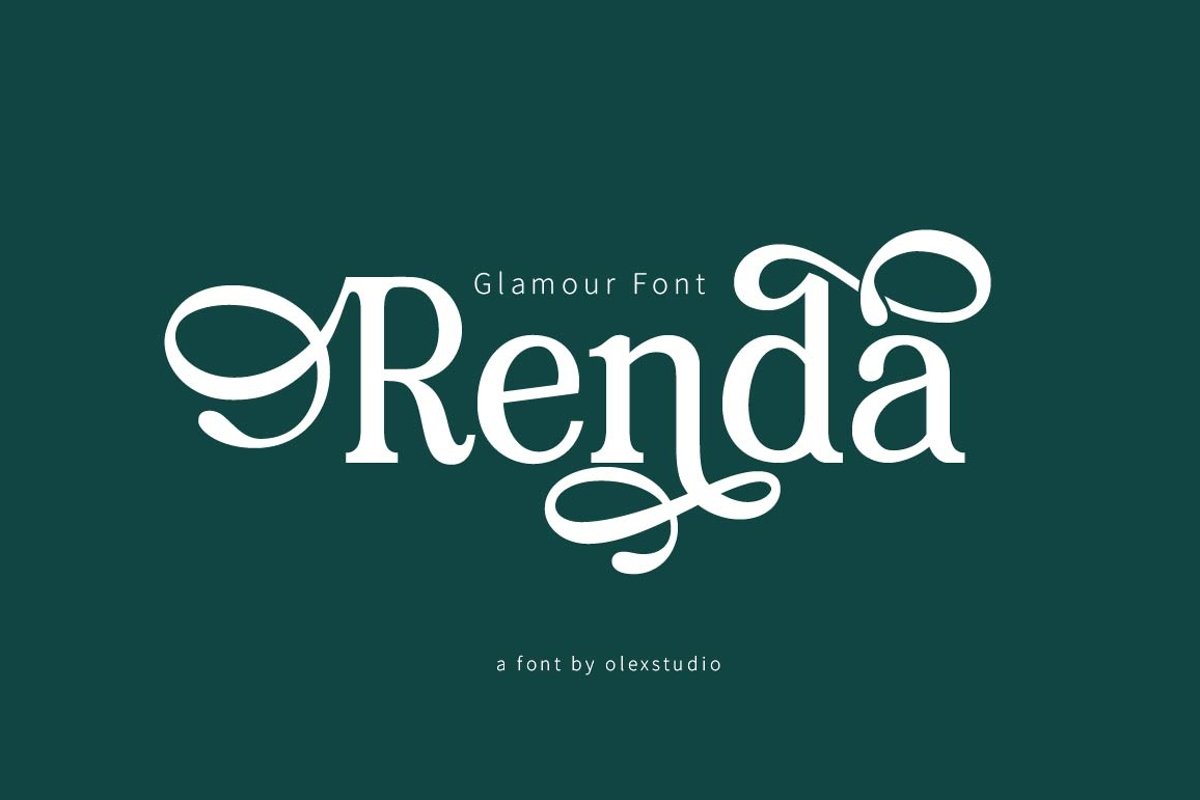
RENDA - Serif
Renda
RENDA - Serif Font will look gorgeous on all your designs, invitation, poster design, book design, branding materials, logo's, t-shirt and all project design other.
RENDA - Serif contains standard characters, Lowercase, lowercase alternates, Uppercase, Uppercase Alternates, numbers, punctuation, ligatures and international glyphs. You will receive OTF, TTF files & WEBFONT.